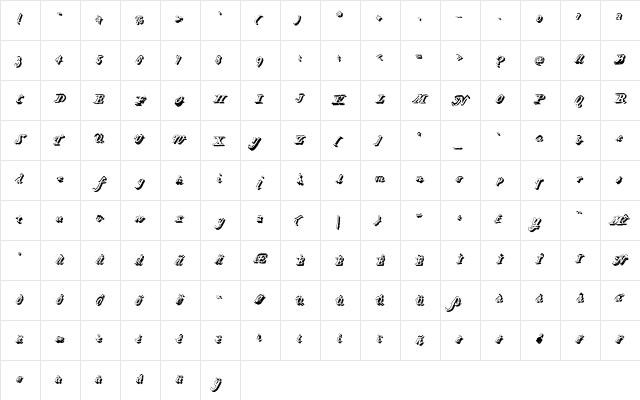
HartzVier-Shadow Regular
Design Context for HartzVier-Shadow Typeface
HartzVier-Shadow brings ornamental detail and strong personality to headlines and identities, where visual impact matters more than quiet functionality.
Font Pairing: Pair with a clean neutral sans-serif for body copy to let HartzVier-Shadow's character lead without overwhelming the composition.
Pro Tip: Use HartzVier-Shadow exclusively at display sizes — it was designed to be seen, not read at length. Let a neutral companion handle body copy.